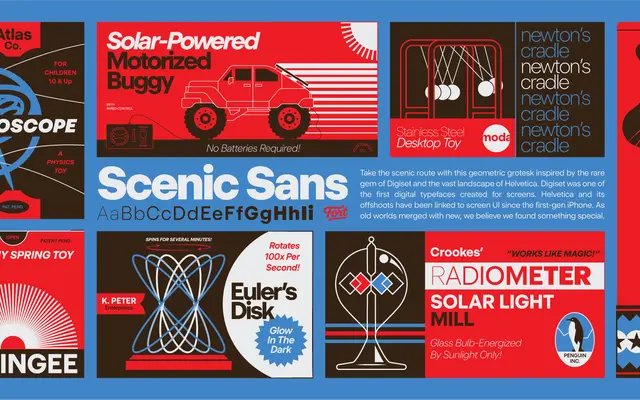
Scenic Sans
Fort Foundry · Mattox Shuler, Brian Brubaker
A geometric grotesque spanning nine weights with matching italics, designed with Helvetica and the early digital typeface Digiset as reference points.
Designed by Mattox Shuler and Brian Brubaker at Fort Foundry, Scenic Sans draws on Helvetica's screen ubiquity and Digiset, one of the earliest digital typefaces built for screens. The family runs from Thin to Black across 18 styles plus a variable font, covering editorial, branding, wayfinding and information design. Latin extended glyph coverage supports a wide range of languages across the full weight range.
The foundry explicitly describes it as a geometric grotesk, citing Helvetica and Digiset as reference points. Its structure combines geometric proportions with grotesque warmth, placing it firmly in that subcategory.